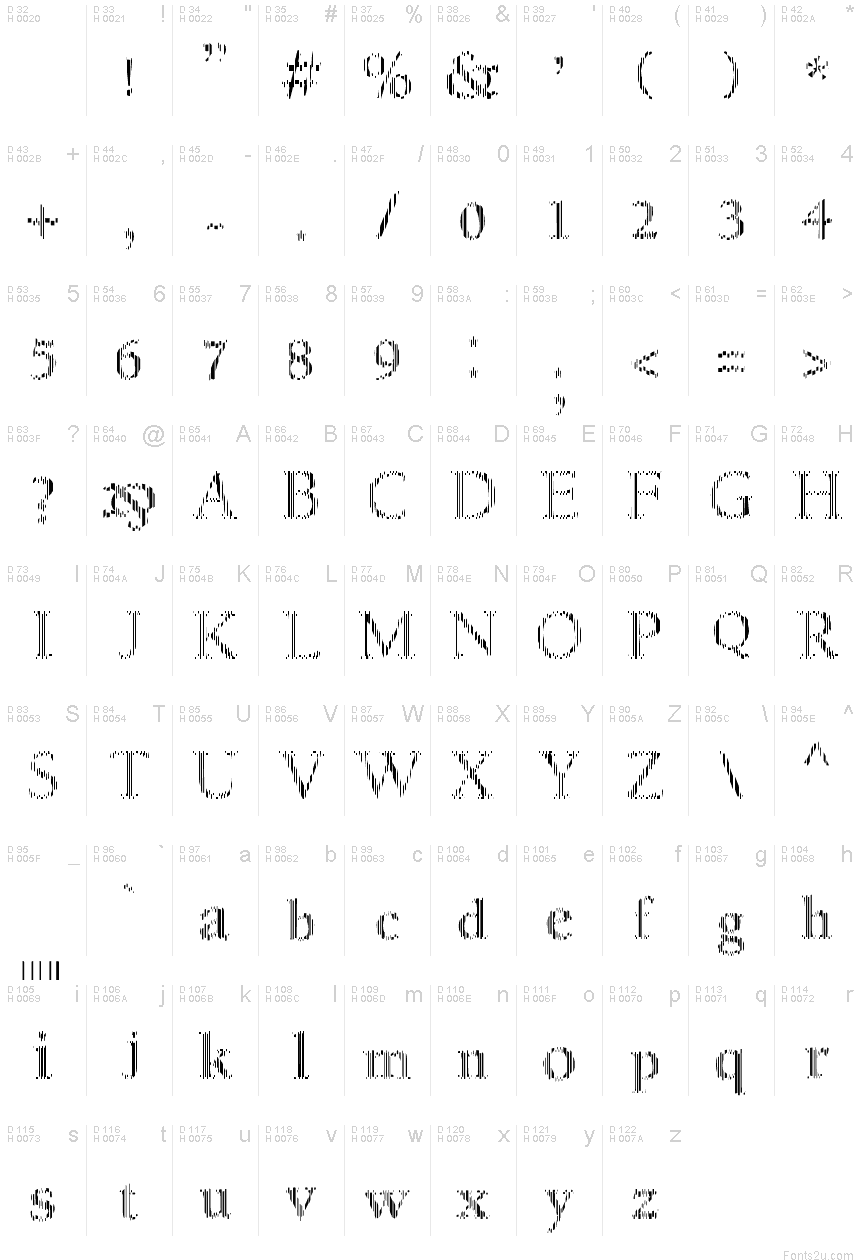
MyFontCode by Moritteddu is a free distorted display font with tall classical letterforms fractured by fine vertical cuts. Uneven gaps and striped slivers break across the strokes, giving the lettering a damaged print quality with a sharp, nervous edge.
Its glitch-horror character suits film posters, album covers, and game title screens built around interference or decay. On fashion editorials and event graphics, the broken vertical pattern can merge with scan lines, scratched photography, or other distressed image treatments.